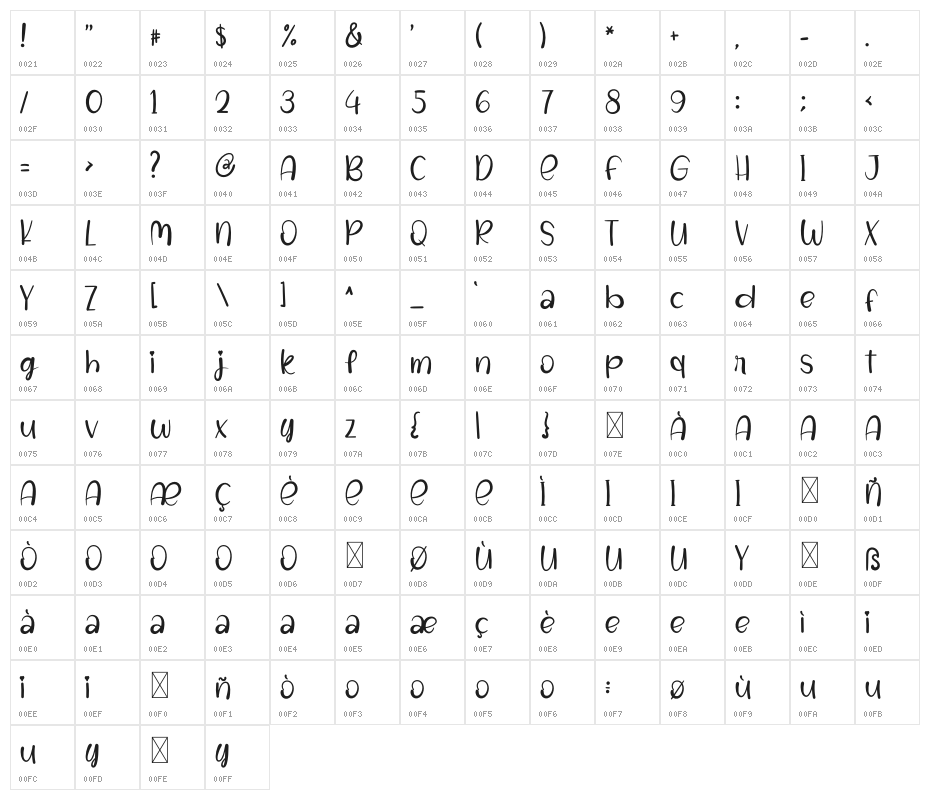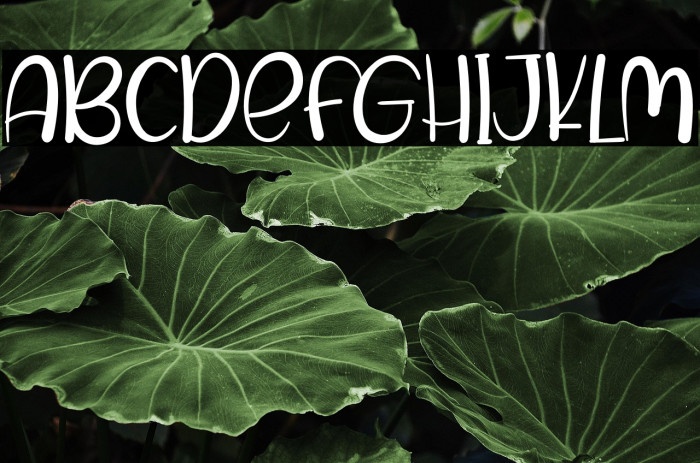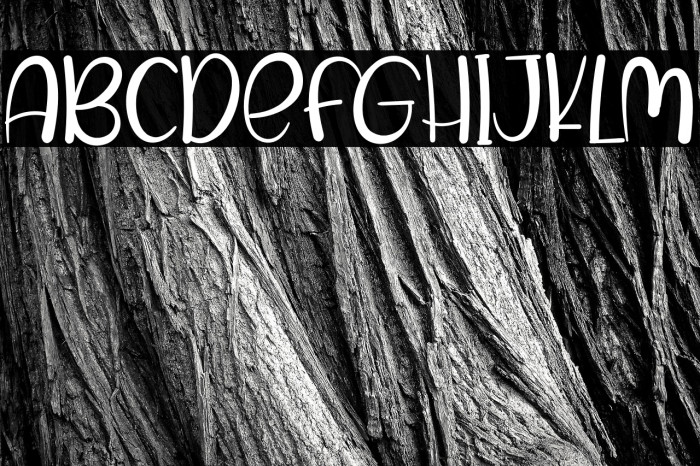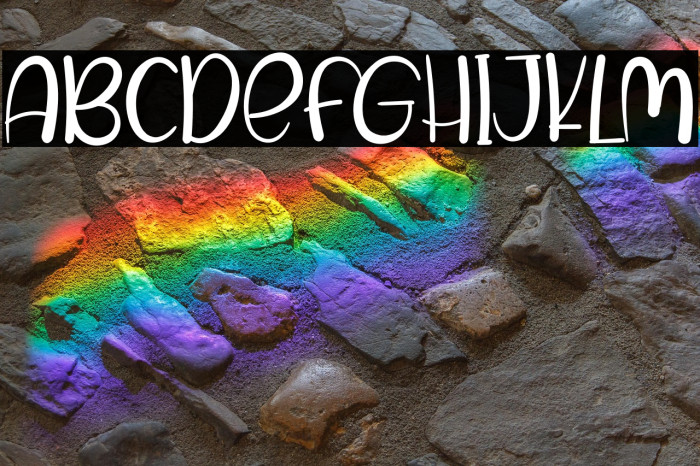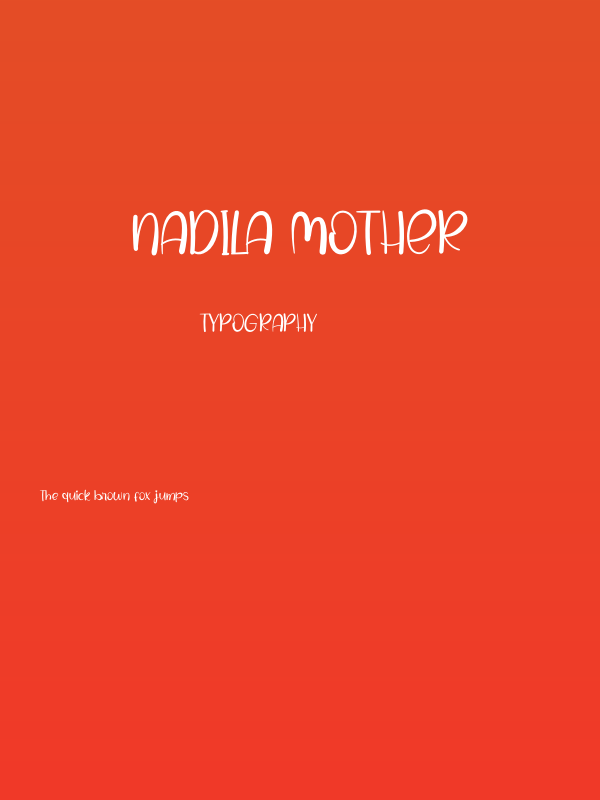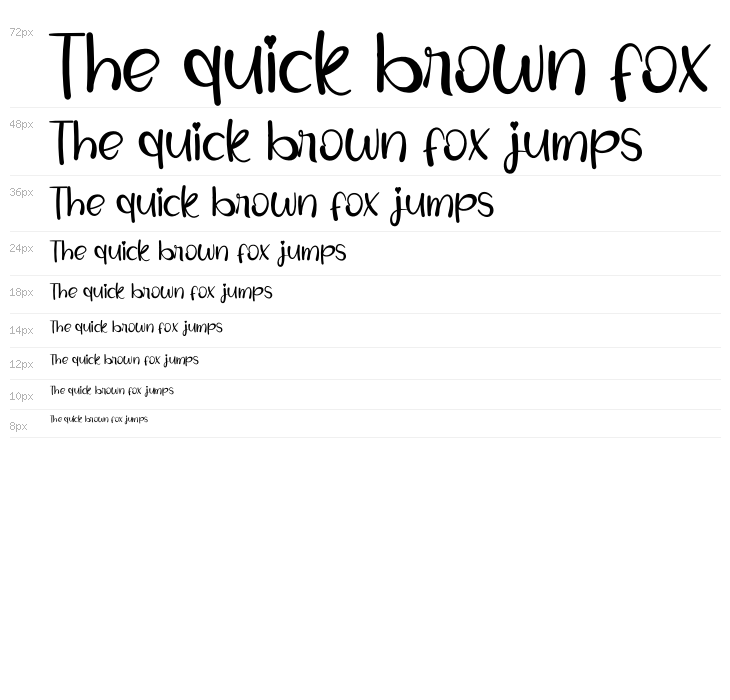
Nadila Mother Font
Nadila Mother Description
This playful and whimsical font features a handwritten style with a touch of elegance. The characters are slightly elongated with rounded edges, giving it a friendly and approachable feel. The uppercase letters are bold and distinctive, while the lowercase letters have charming loops and curves. The numbers are consistent with the overall style, maintaining the playful aesthetic. Special characters are creatively designed, adding to the font's unique personality. This font is perfect for projects that require a personal touch, such as invitations, greeting cards, or playful branding.
| Use Case | Invitations, Greeting cards, Playful branding |
| Proposed Projects | Ideal for invitations, greeting cards, playful branding, and personal projects. |